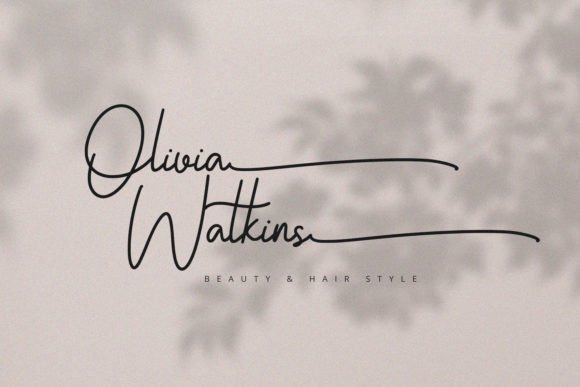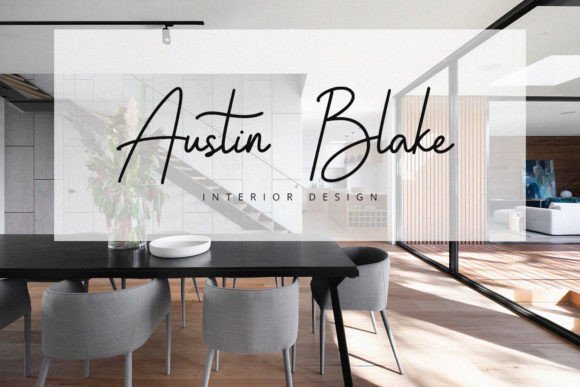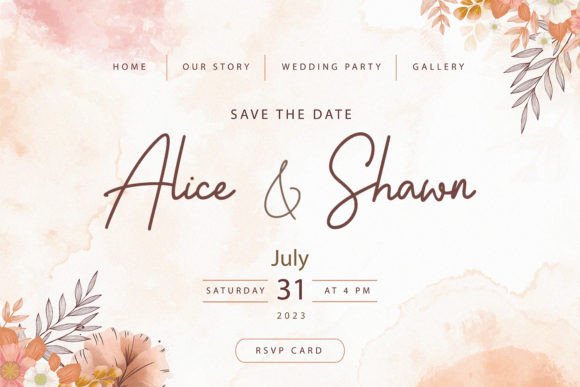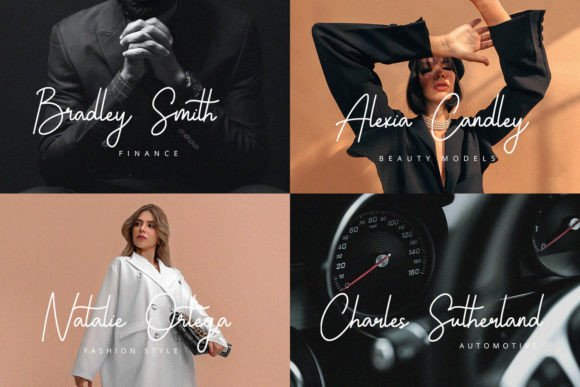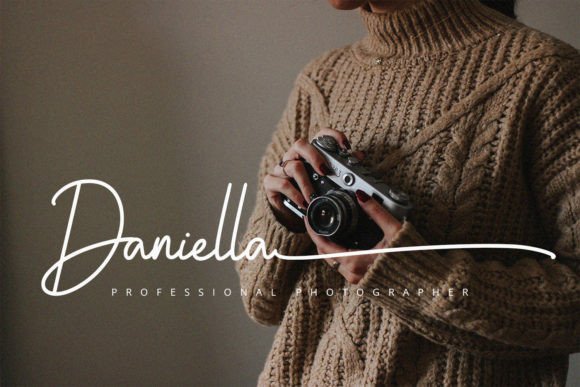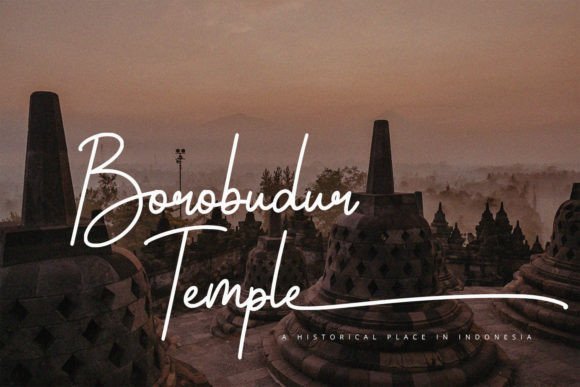
Cristine Font: Elevate Your Designs with a Stylish Handwritten Touch
Are you on the hunt for a font that adds a personal, casual touch to your designs? Look no further than Cristine, a beautiful handwritten font that exudes authenticity and style. In this article, we’ll dive into the world of Cristine font, exploring its features, uses, and benefits for designers and crafters alike.
What is Cristine Font?
Cristine is a stylish handwritten font designed to bring a touch of elegance and casualness to your designs. Its authentic feel makes it perfect for a wide range of projects, from branding and logo design to lettering, logotype, and more. Whether you’re working on a poster, magazine, packaging, or clothing design, Cristine font is sure to impress.
Key Features of Cristine Font
- PUA Encoded: Cristine font is PUA (Private Use Area) encoded, which means you can easily access all the glyphs and swashes. This feature makes it simple to customize your designs and add a personal touch.
- Handwritten Style: Cristine boasts a beautiful, handwritten style that’s perfect for creating unique and eye-catching designs.
- Authentic Feel: The font’s authentic feel makes it suitable for a wide range of projects, from formal to informal designs.
- Casual and Elegant: Cristine strikes the perfect balance between casual and elegant, making it ideal for designs that require a touch of sophistication.
Uses of Cristine Font
Cristine font is incredibly versatile and can be used for a wide range of design projects, including:
- Branding: Create a lasting impression with Cristine font, perfect for logos, business cards, and brand identity.
- Logo Design: Design stunning logos that stand out from the crowd with Cristine’s unique and stylish handwritten style.
- Lettering: Add a personal touch to your lettering projects with Cristine’s elegant and casual feel.
- Logotype: Create memorable logotypes that showcase your brand’s personality with Cristine font.
- Clothing: Design eye-catching clothing with Cristine font, perfect for t-shirts, hoodies, and more.
- Posters: Create stunning posters that grab attention with Cristine’s stylish and authentic feel.
- Magazine: Add a touch of elegance to your magazine designs with Cristine font, perfect for headings, titles, and more.
- Packaging: Make your packaging designs stand out with Cristine font, suitable for labels, tags, and more.
- Shopping Bags: Design reusable shopping bags with Cristine font, perfect for brands looking to make a statement.
- T-Shirts: Create custom t-shirts with Cristine font, ideal for personal or business use.
- Book Covers: Design captivating book covers with Cristine font, perfect for authors and publishers.
- Photography: Add a touch of elegance to your photography with Cristine font, suitable for captions, titles, and more.
- Special Events: Create memorable designs for special events, such as weddings, parties, and conferences, with Cristine font.
Benefits of Using Cristine Font
So, why choose Cristine font for your designs? Here are just a few benefits:
- Unique and Eye-Catching: Cristine font adds a touch of uniqueness to your designs, making them stand out from the crowd.
- Easy to Use: With PUA encoding, accessing glyphs and swashes is a breeze, making it easy to customize your designs.
- Versatile: Cristine font is suitable for a wide range of design projects, making it a valuable addition to your font library.
- Authentic Feel: The font’s authentic feel adds a personal touch to your designs, making them more relatable and engaging.
In conclusion, Cristine font is a stylish handwritten font that offers a unique and authentic touch to your designs. With its PUA encoding, elegant style, and versatile uses, it’s an excellent choice for designers and crafters alike. Whether you’re working on branding, logo design, lettering, or any other design project, Cristine font is sure to elevate your designs to the next level.